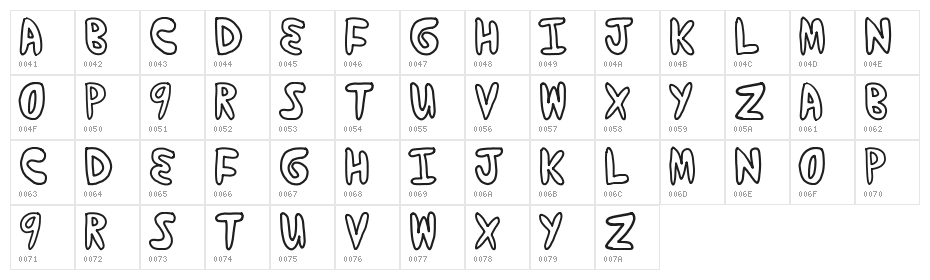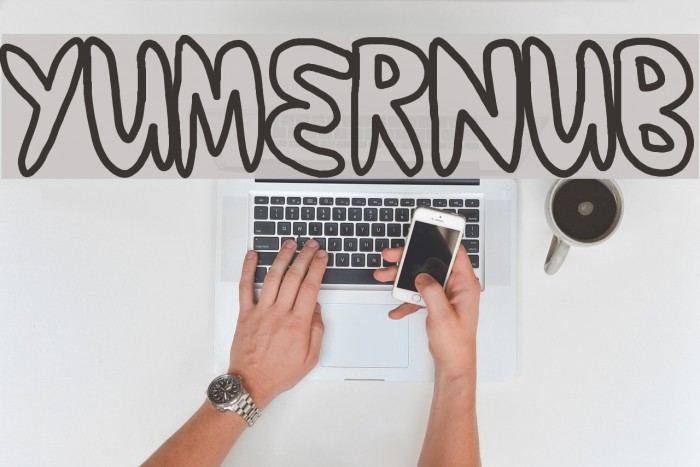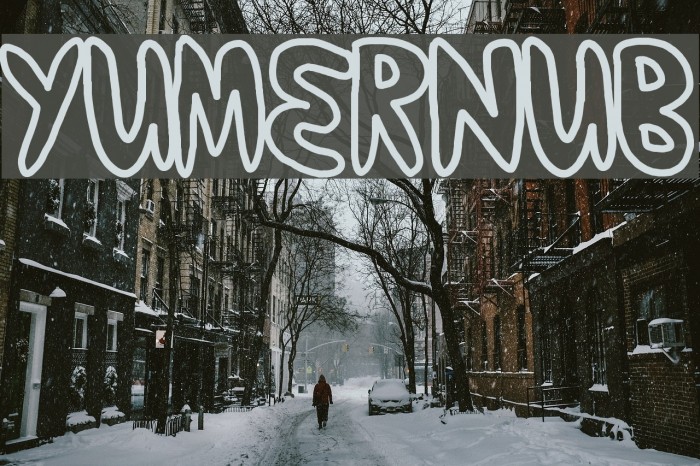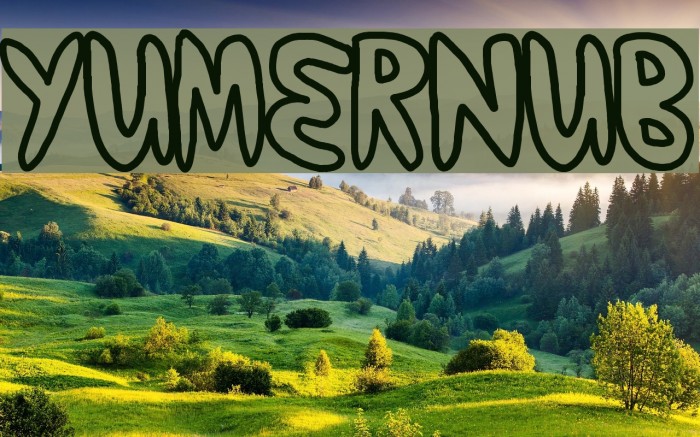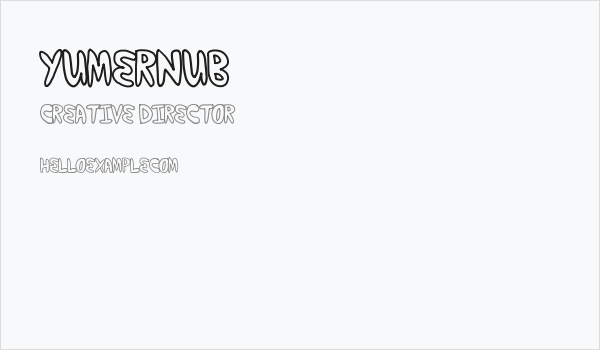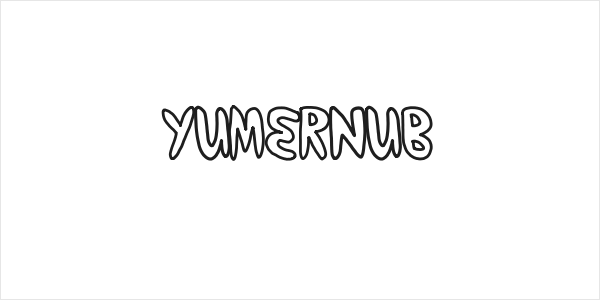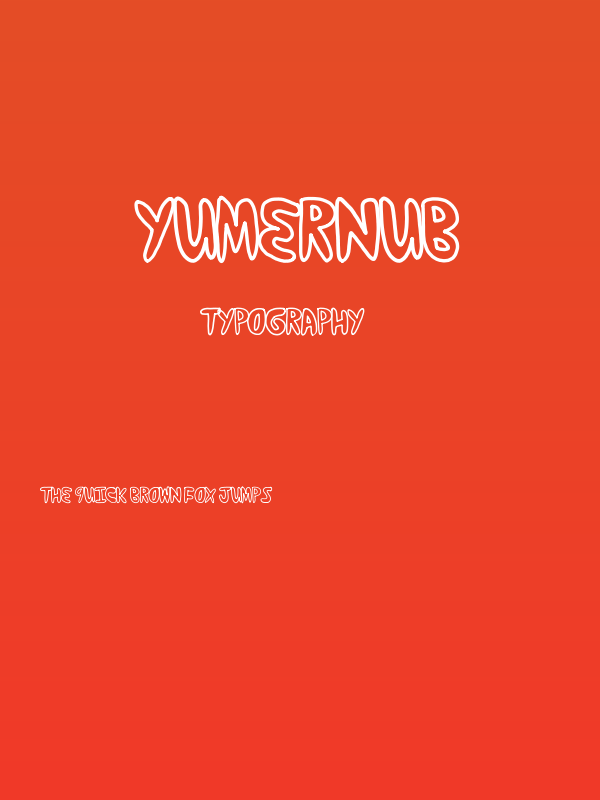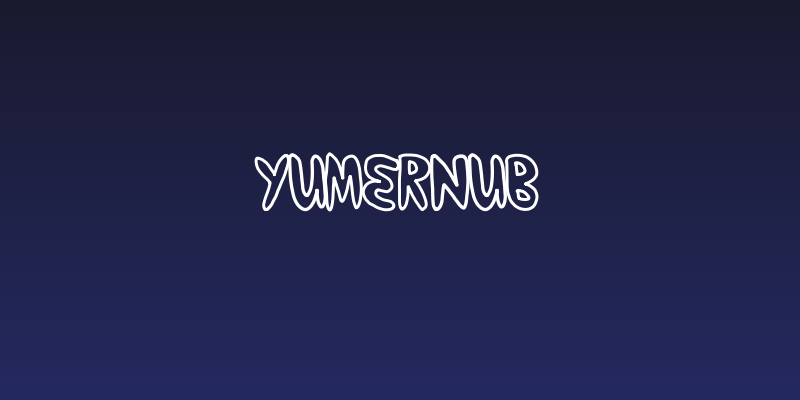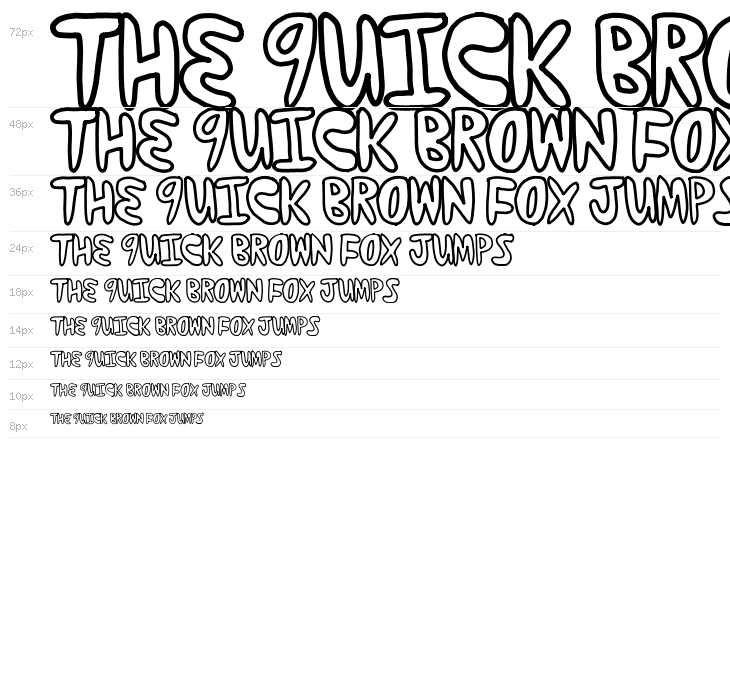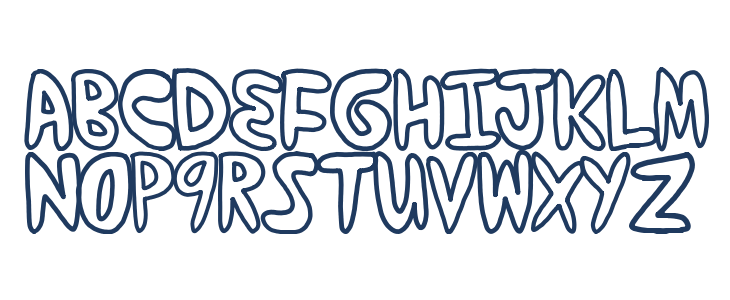
yumernub Font
yumernub Description
This playful and bold font features a hand-drawn style with thick, rounded outlines. Each character is uniquely crafted, giving a whimsical and informal appearance. The letters are uppercase, with a consistent height and width, creating a cohesive look. The strokes are uniform, with a medium contrast between the thick outlines and the inner space of the letters. This font exudes a fun and casual vibe, making it ideal for projects that require a touch of personality and creativity.
| Use Case | Headlines, Posters, Branding |
| Proposed Projects | Perfect for children's books, comic strips, playful branding, and creative posters. |